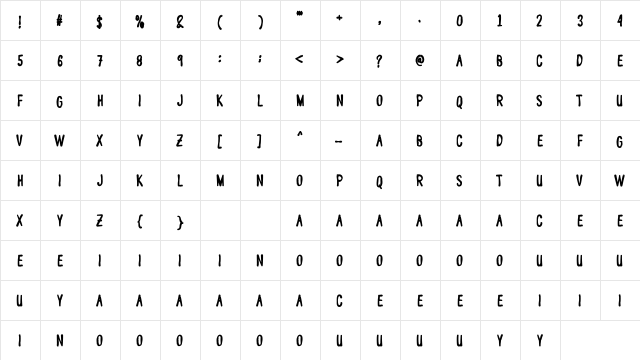
Winter Snowing Regular
Design Context for Winter Snowing Typeface
Winter Snowing takes a measured approach to typography — its balanced proportions and neutral character make it a reliable workhorse for both digital and print work.